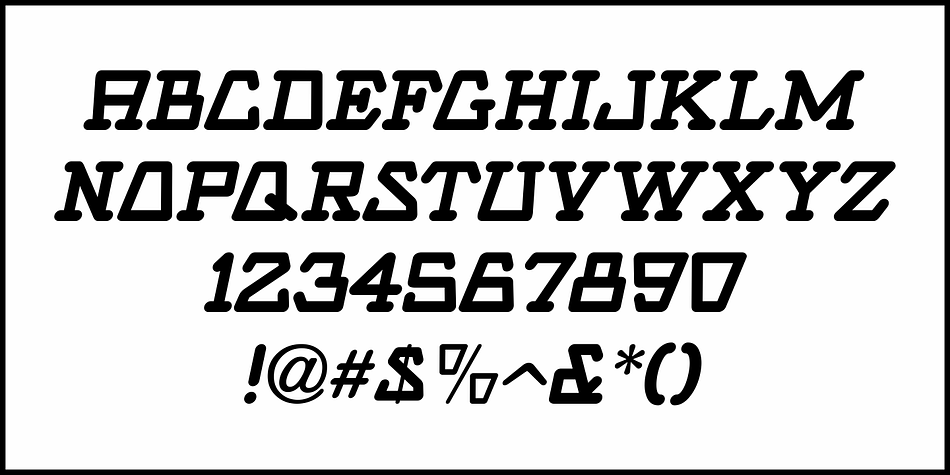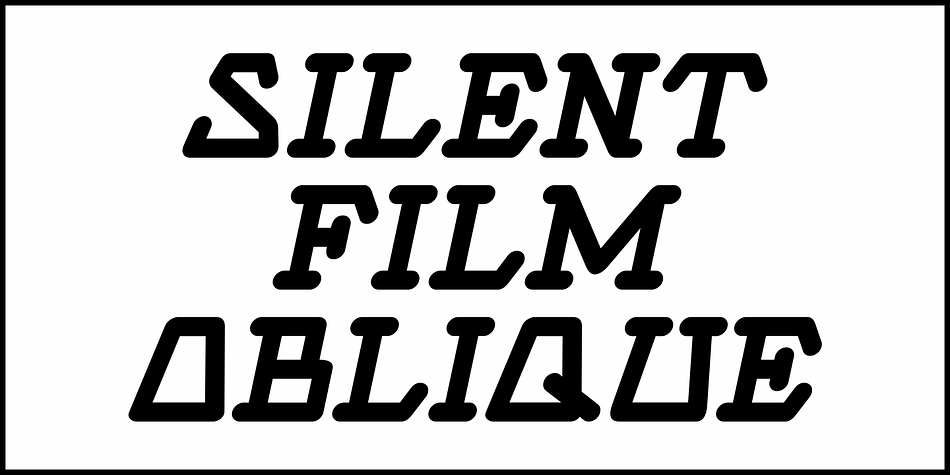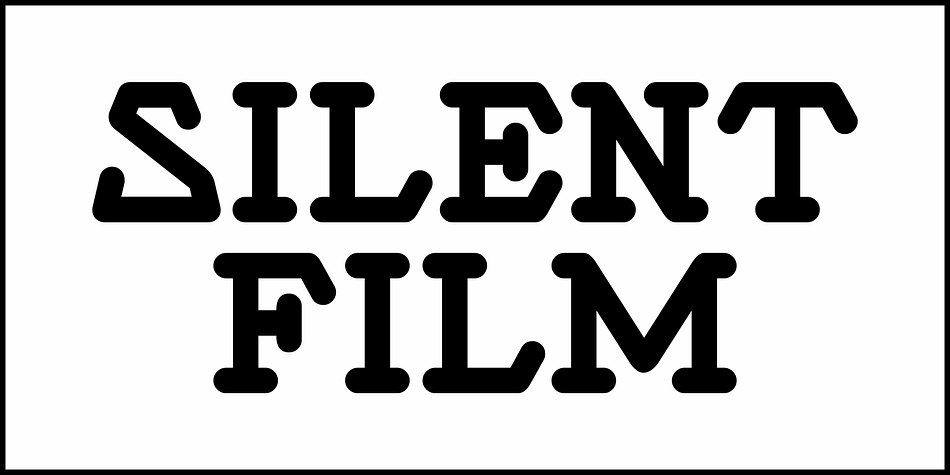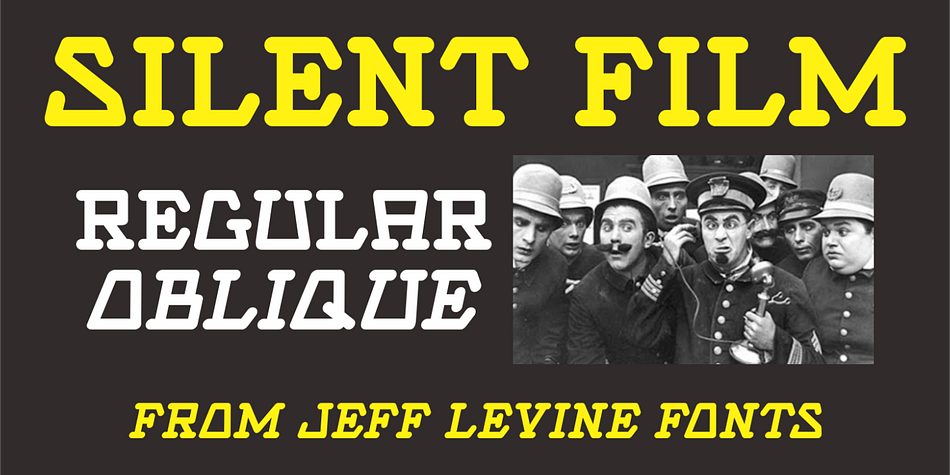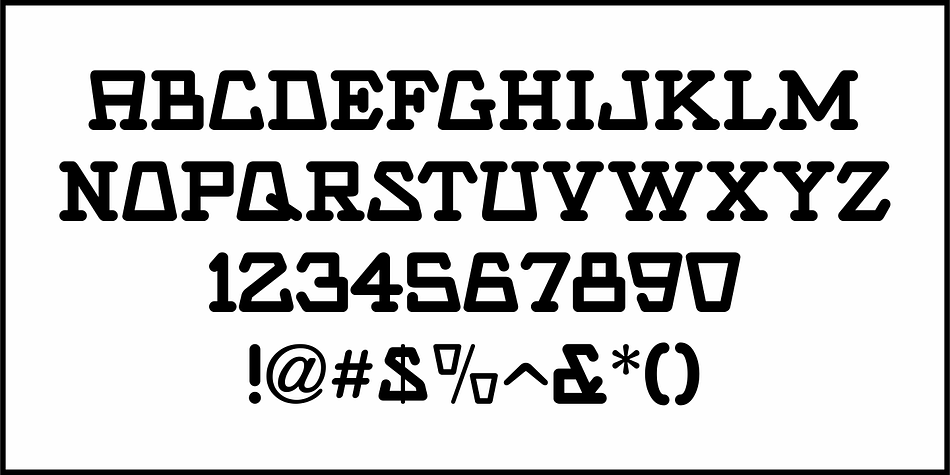
SILENT FILM JNL
Designed by Jeff Levine, Silent Film JNL is a display serif font family. This typeface has two styles and was published by Jeff Levine Fonts.
Built in 1928 in Wichita, Kansas, the Uptown Theater started out as a movie house, but today still exists as a dinner theater.
Online images of this vintage venue’s perpendicular wall sign show the theater’s name in an Art Nouveau influenced angular style with rounded terminals – similar to that of pen drawn sign lettering of the era.
Adapted as a digital type font, Silent Film JNL is available in both regular and oblique versions.